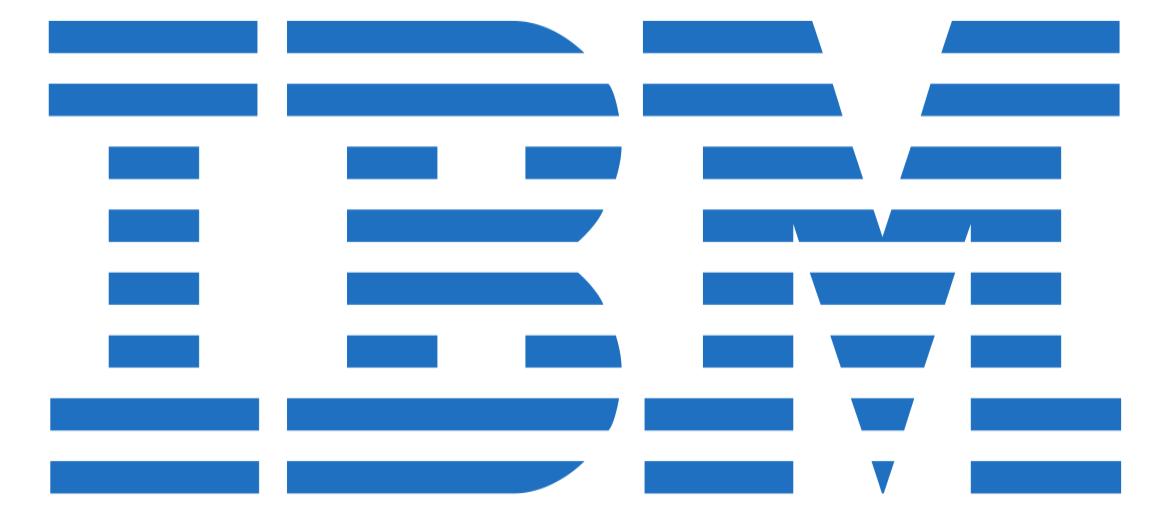
IBM Font has always fascinated me because of how strong and structured it looks. Every time I see the company’s branding, I notice how much the IBM logo font contributes to its image as a pioneer in technology and innovation. In my opinion, the typeface reflects professionalism, authority, and clarity—qualities that define IBM’s legacy.
IBM Font
The IBM logo font is based on a custom typeface called City Medium, designed by Georg Trump. I think this was a brilliant choice because it delivers a sense of stability and trust, which aligns perfectly with IBM’s reputation in enterprise technology. From my analysis, the IBM logo font stands out in both digital and print formats, keeping the brand’s visual identity consistent worldwide.
Compared to other tech companies, IBM Font feels more iconic and historical, carrying decades of brand recognition. I believe that’s what makes it so powerful—it represents not just a company but also an era of technological progress. To me, IBM Font proves that a well-designed logo font can become a timeless symbol of innovation.